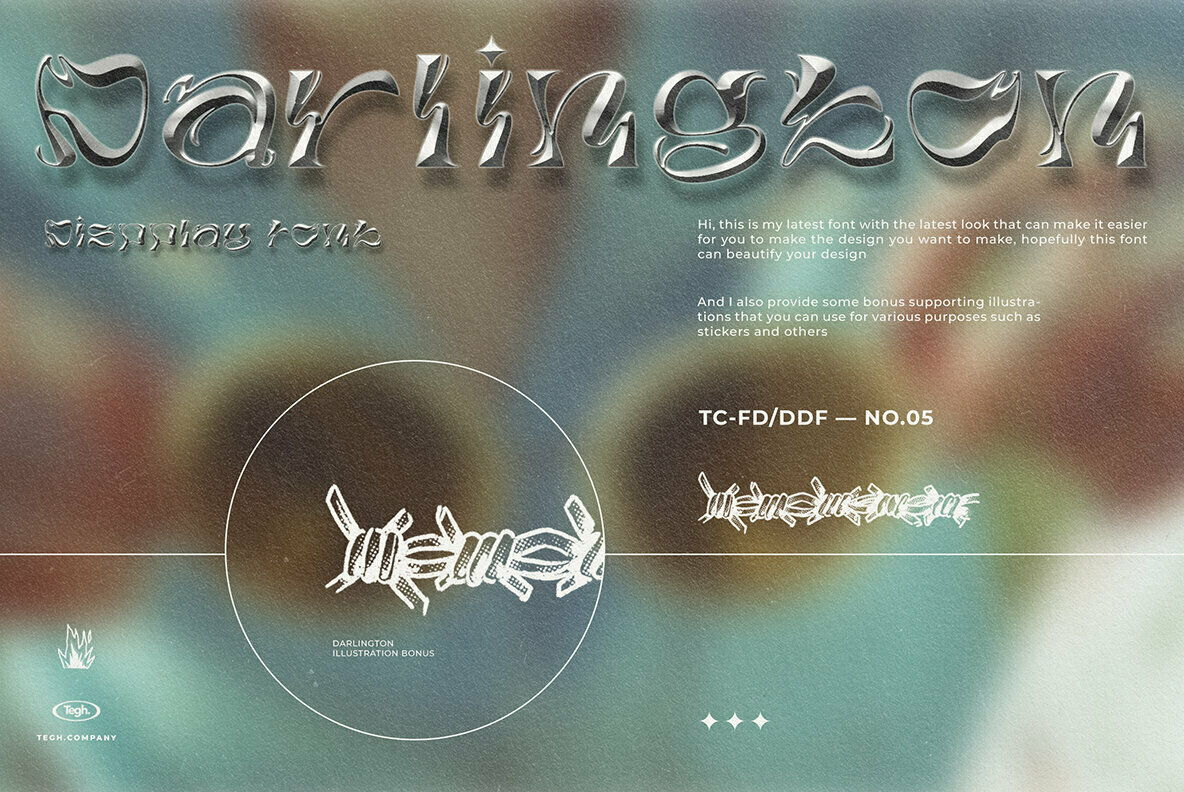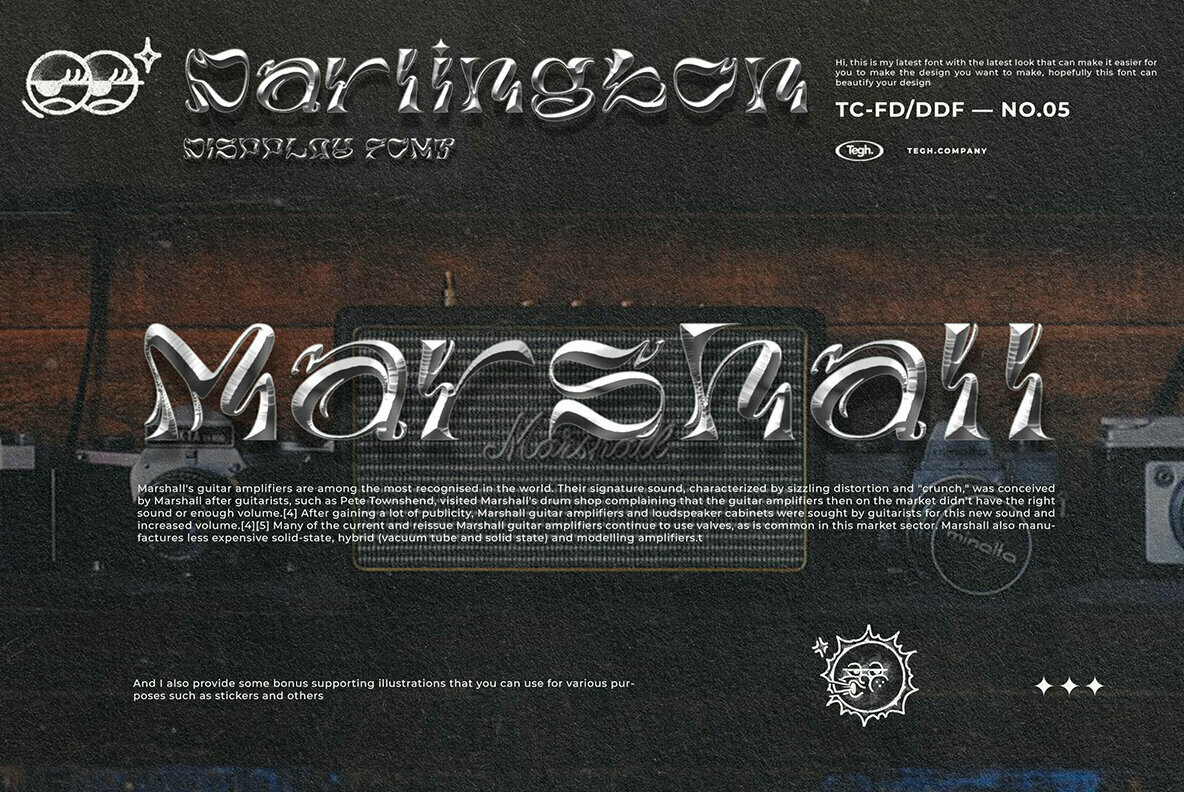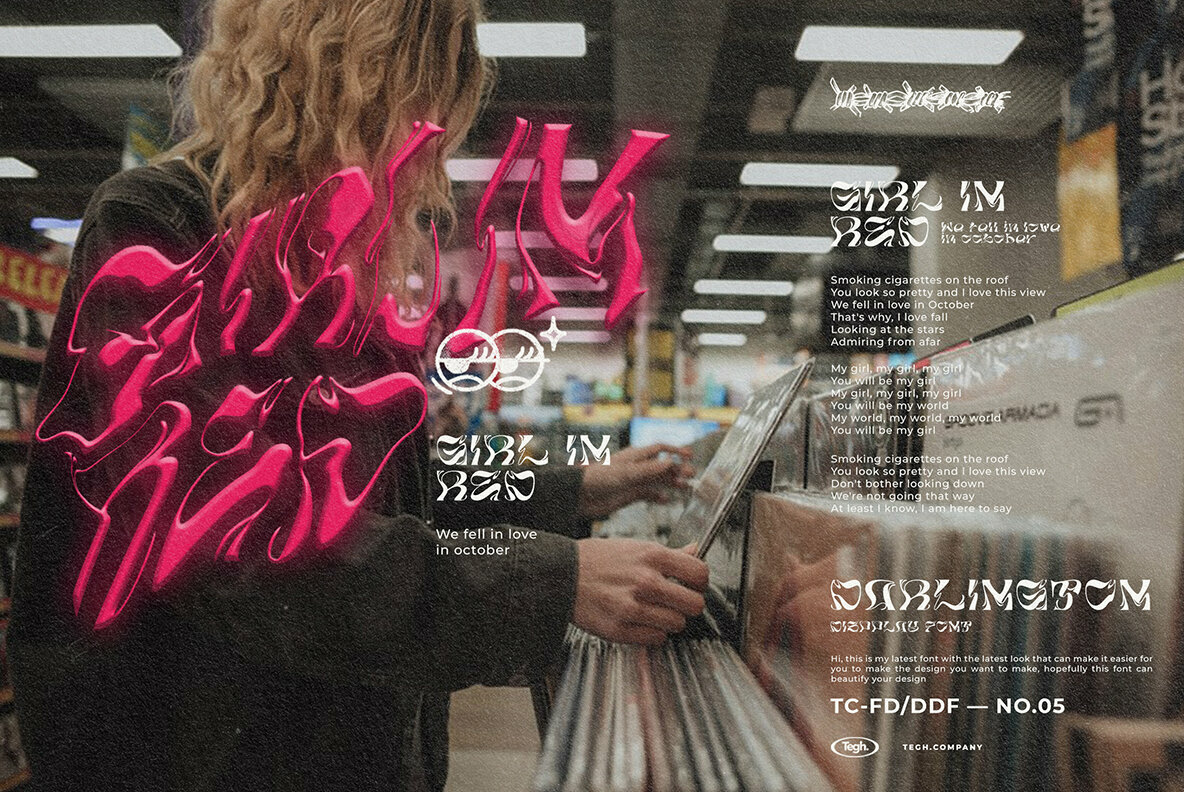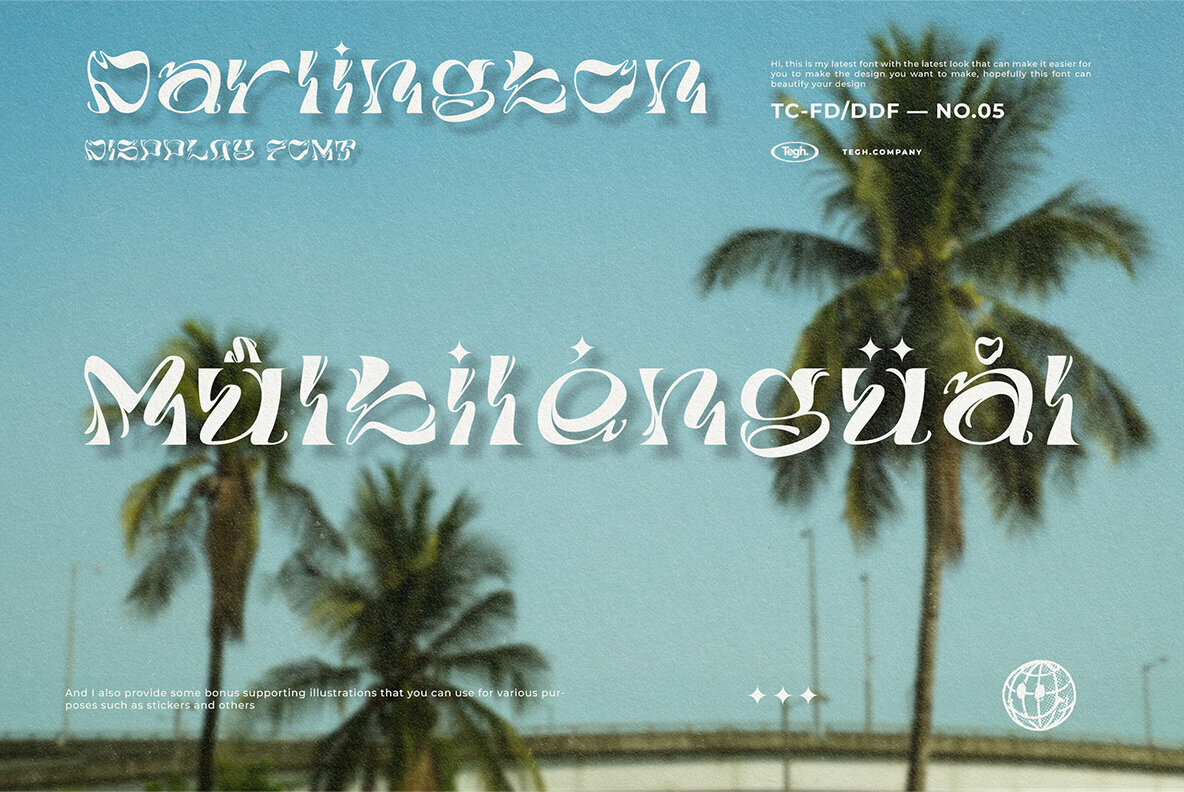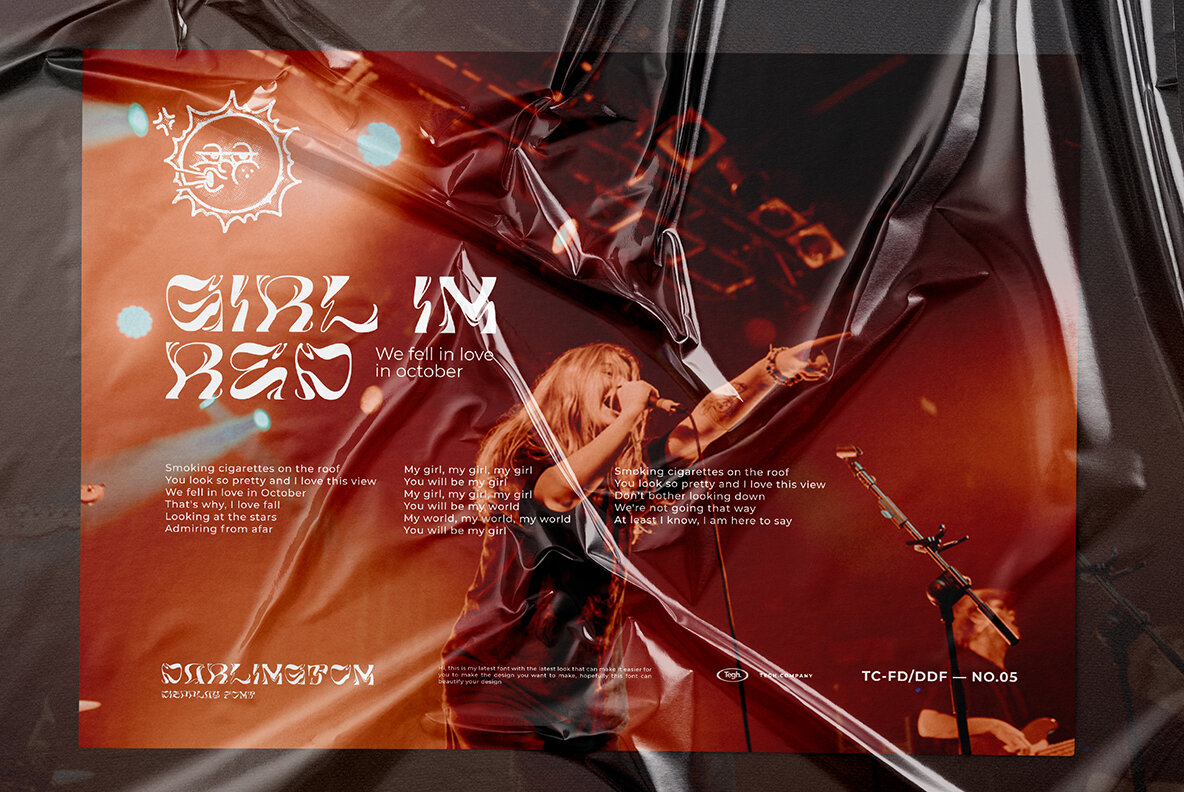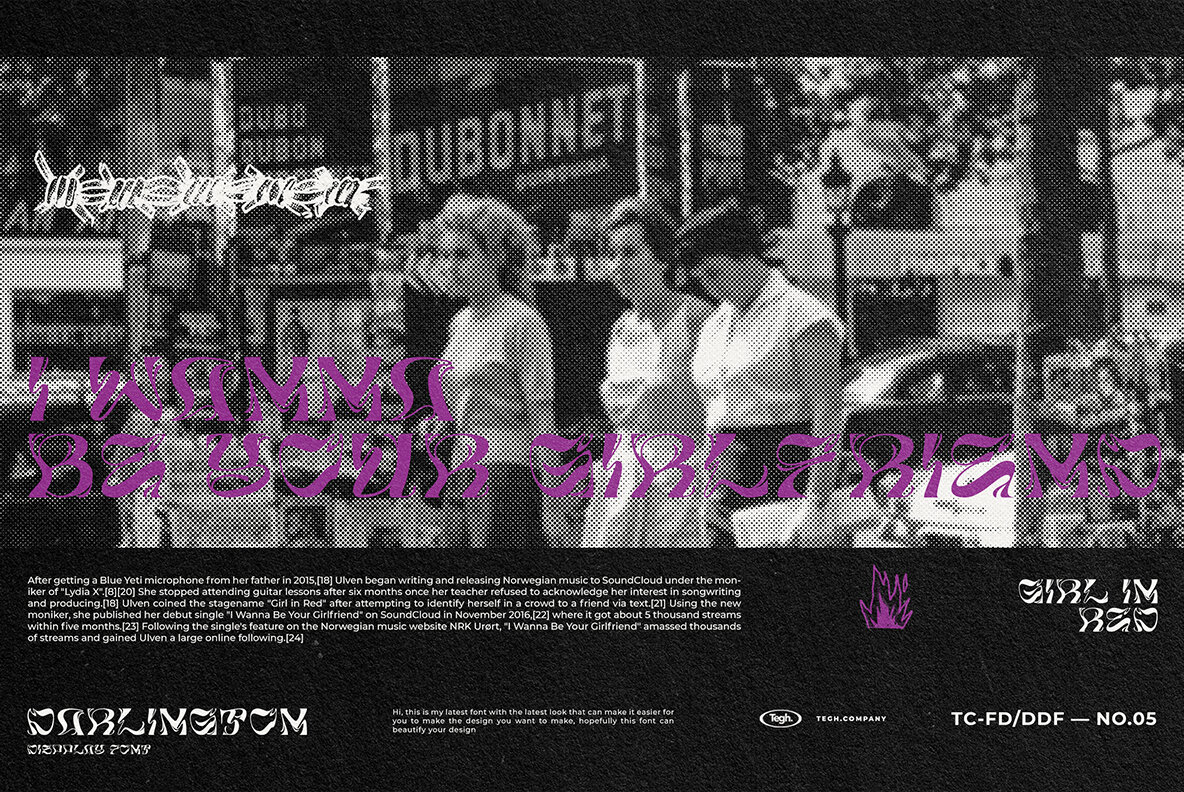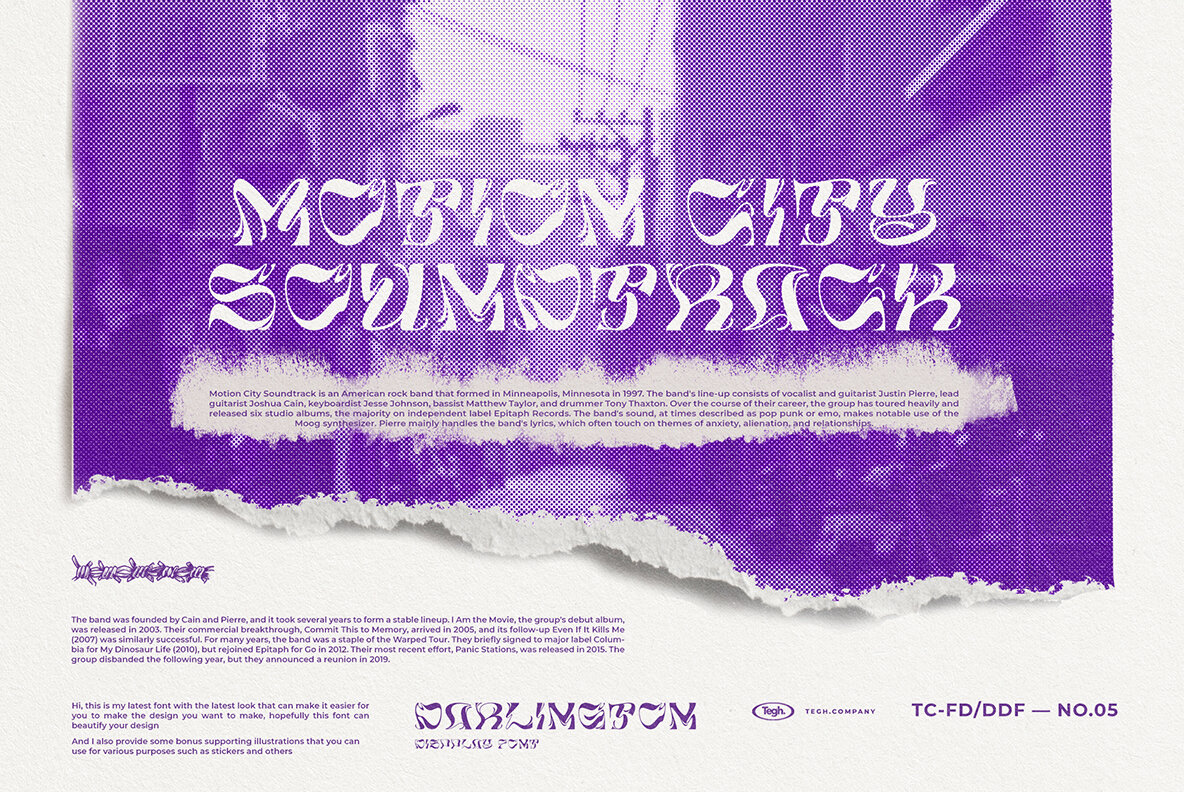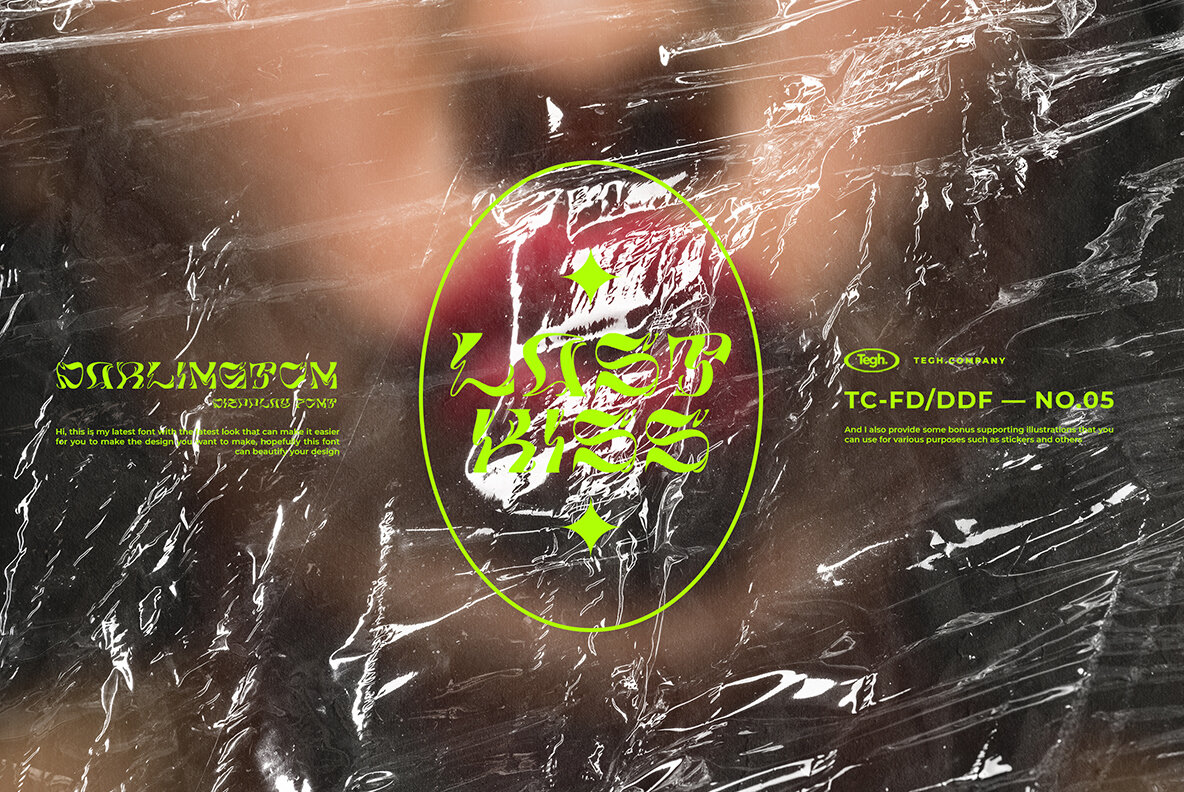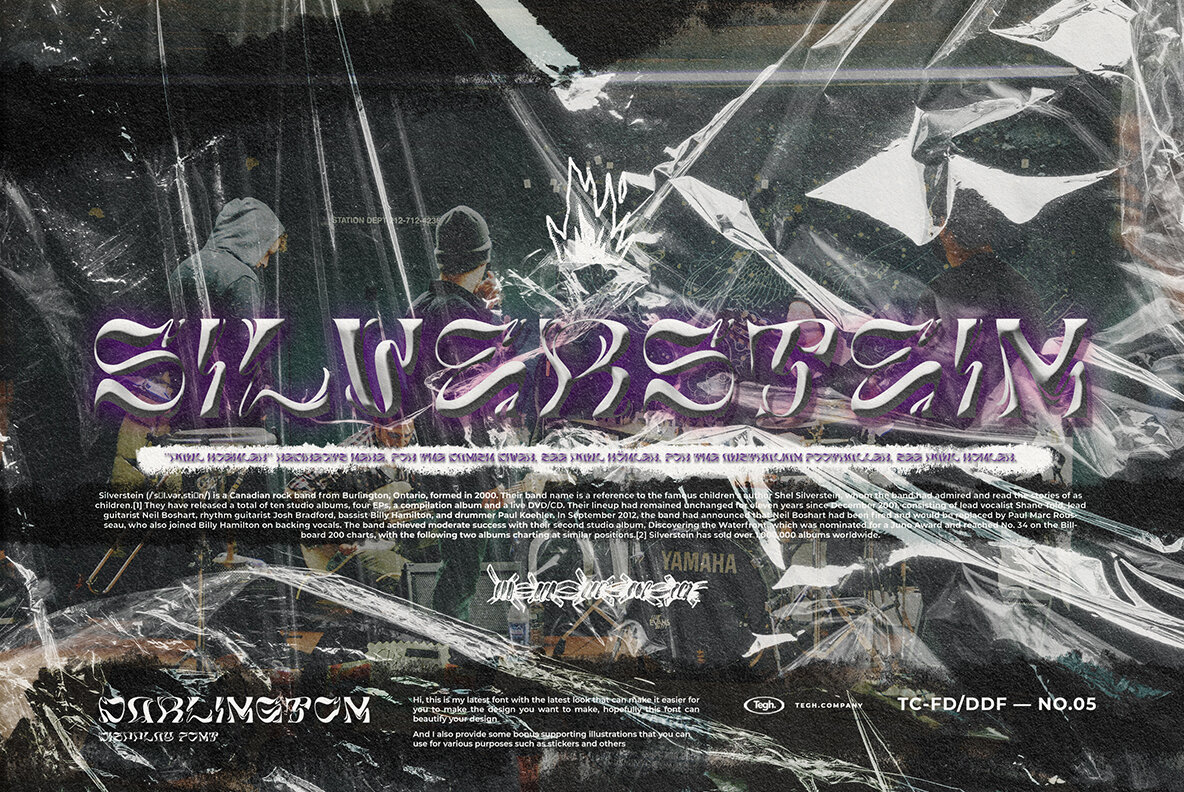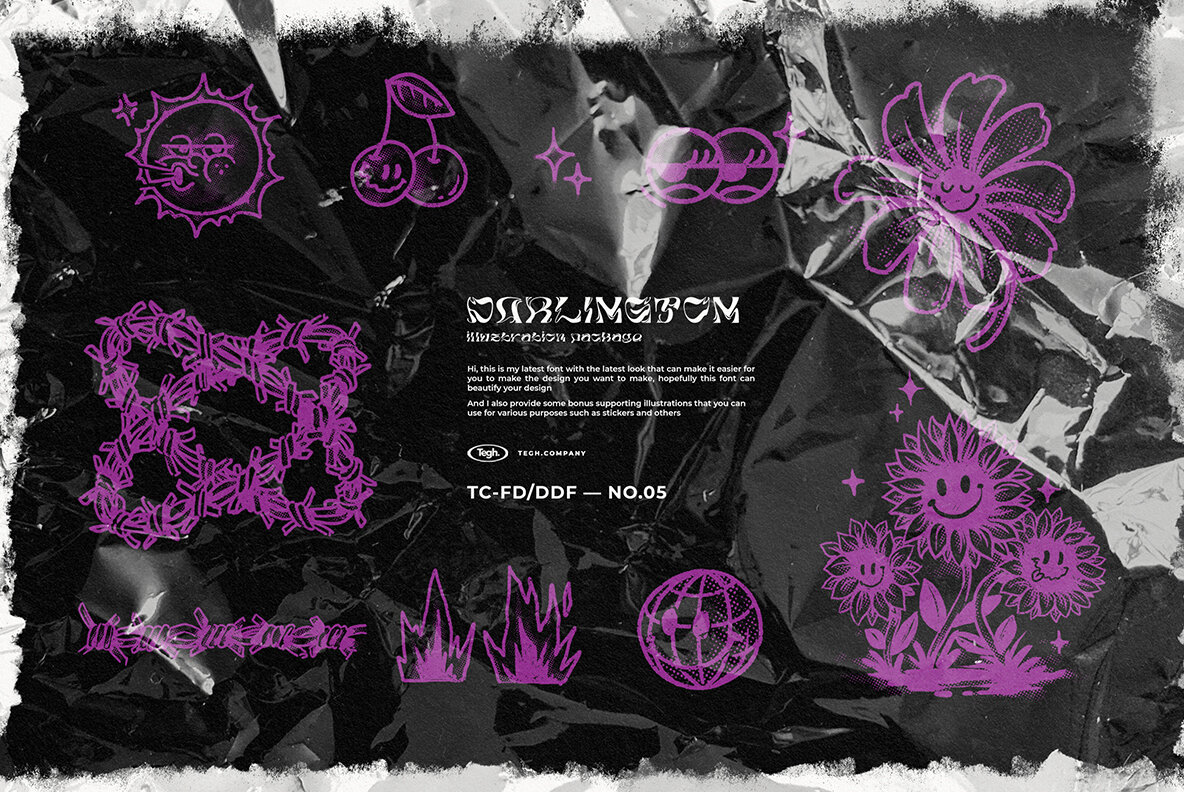
Darlington Display Font
Darlington Display is a bold and creative font that includes a free bonus in the form of illustration badges. It can be used for all sorts of projects, like branding or creating interesting headlines on your next article!
Tegh Co is a bold and experimental type foundry, pushing the boundaries of typography with high-impact display fonts. Their font collection blends retro influences, futuristic aesthetics, and unconventional letterforms, creating typefaces that demand attention. From playful and bubbly script fonts to heavy, in...